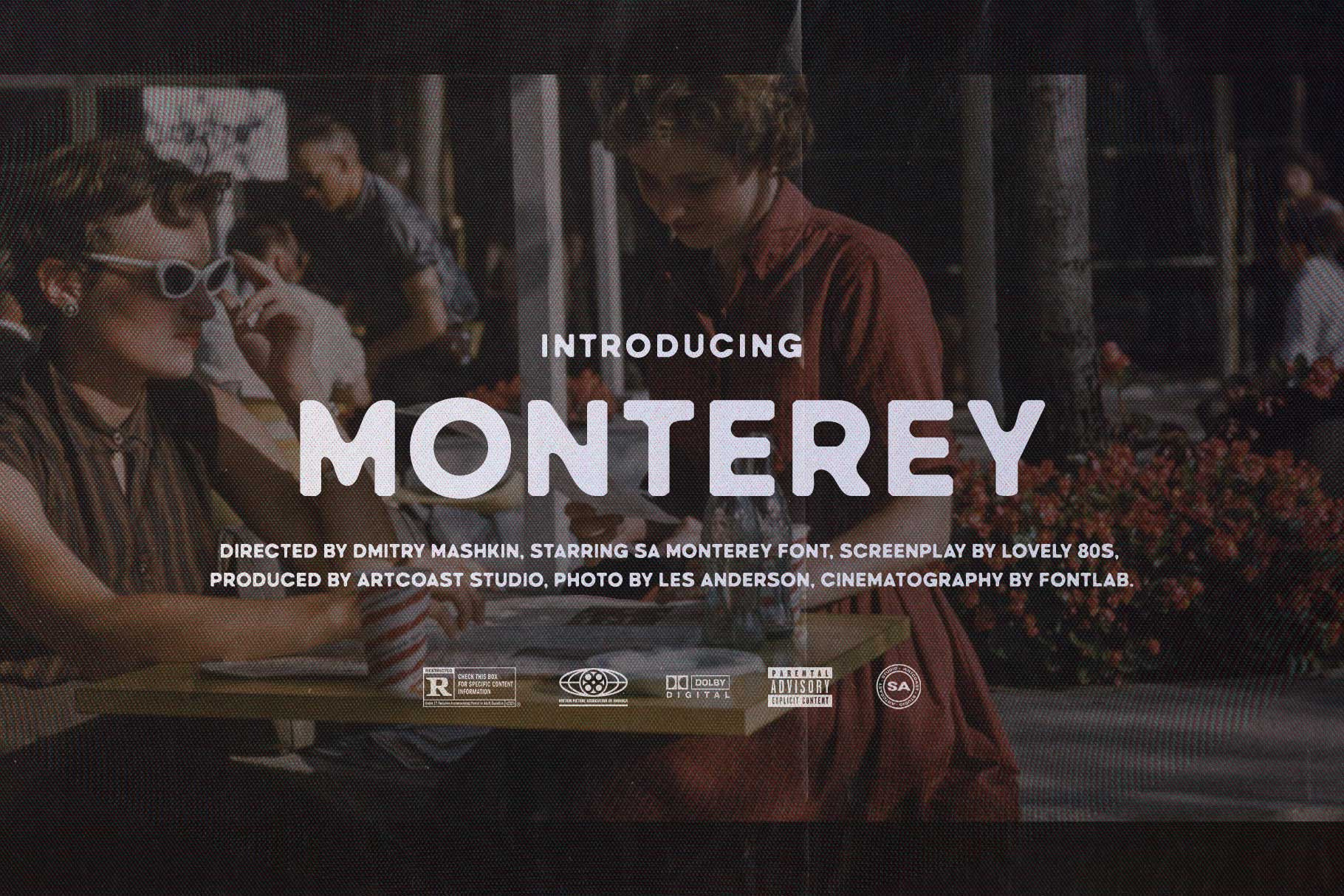
SA Monterey Retro Bold Display Font
SA Monterey is a bold retro display font with chunky rounded letterforms and an expressive hand-shaped feel. Built for attention-grabbing typography, it brings vintage character to movie titles, posters, logos, packaging, editorial layouts, apparel, and social graphics. Its confident silhouette stays readable at large sizes, while the irregular curves keep every layout warm and distinctive.
Cinematic titles and poster design
Retro branding and logo concepts
Packaging, labels, and merchandise
Headlines, covers, and social media graphics